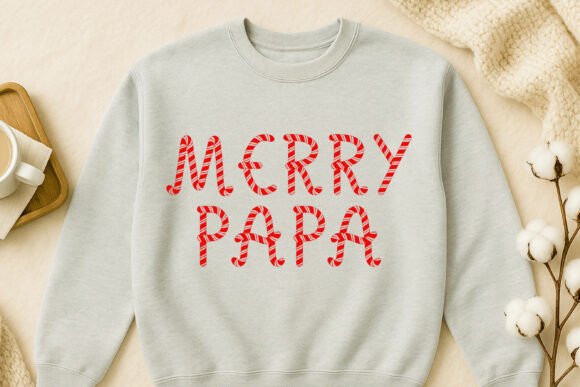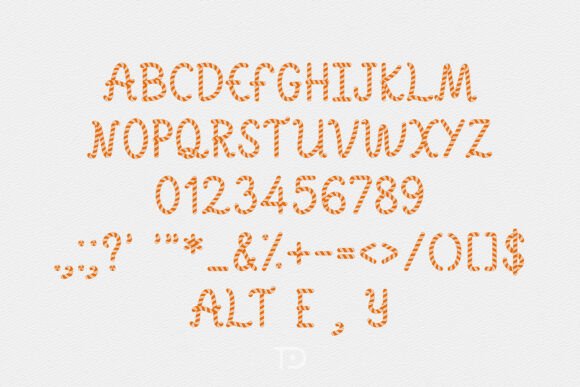
Candycane Party – The Sweetest Christmas Font
Get ready to celebrate the holidays with Candycane Party, a cheerful and delicious display font that captures the magic of Christmas in every stripe. This festive font is perfect for adding a sprinkle of sweetness to your holiday cards, party invitations, packaging, and festive decor.
A Font that Tastes like Christmas Magic
Candycane Party is a unique and eye-catching font that looks like it’s been hand-twisted from peppermint candy. Each letter is bold, bright, and irresistibly festive, making it perfect for designs that require a touch of holiday cheer. Whether you’re creating Santa’s workshop designs, baking labels, gift tags, greeting cards, or DIY projects, this font shines wherever Christmas cheer is needed.
Candycane Party is a versatile font that’s perfect for designers and crafters who want to add a touch of holiday magic to their creations. Whether you’re creating digital designs or handmade crafts, this font is sure to inspire your creativity and make your designs stand out. With its bold and bright letters, Candycane Party is perfect for creating eye-catching designs that will grab attention and spread holiday cheer.
Ideas for Using Candycane Party
There are countless ways to use Candycane Party in your designs and crafts. Here are a few ideas to get you started:
- Holiday cards and invitations: Add a touch of festive fun to your holiday cards and invitations with Candycane Party.
- Party decorations: Use Candycane Party to create festive party decorations, such as banners, garlands, and signs.
- Baking labels and gift tags: Add a personal touch to your baked goods and gifts with custom labels and tags featuring Candycane Party.
- DIY projects: Use Candycane Party to add a touch of holiday magic to your DIY projects, such as ornaments, wreaths, and other decorations.
- Digital designs: Use Candycane Party to create festive digital designs, such as social media graphics, blog posts, and email newsletters.
Why Choose Candycane Party?
There are many reasons why Candycane Party is the perfect font for your holiday designs and crafts. Here are a few:
- Unique and eye-catching: Candycane Party is a one-of-a-kind font that’s sure to grab attention and add a touch of holiday magic to your designs.
- Versatile: Candycane Party can be used in a variety of designs and crafts, from digital designs to handmade crafts.
- Festive and fun: Candycane Party is the perfect font for adding a touch of holiday cheer to your designs and crafts.
Candycane Party is a sweet and festive font that’s perfect for adding a touch of holiday magic to your designs and crafts. With its bold and bright letters, PUA encoding, and versatility, this font is sure to inspire your creativity and make your designs stand out. Whether you’re a designer or crafter, Candycane Party is the perfect font for spreading holiday cheer and making your designs merry and bright.